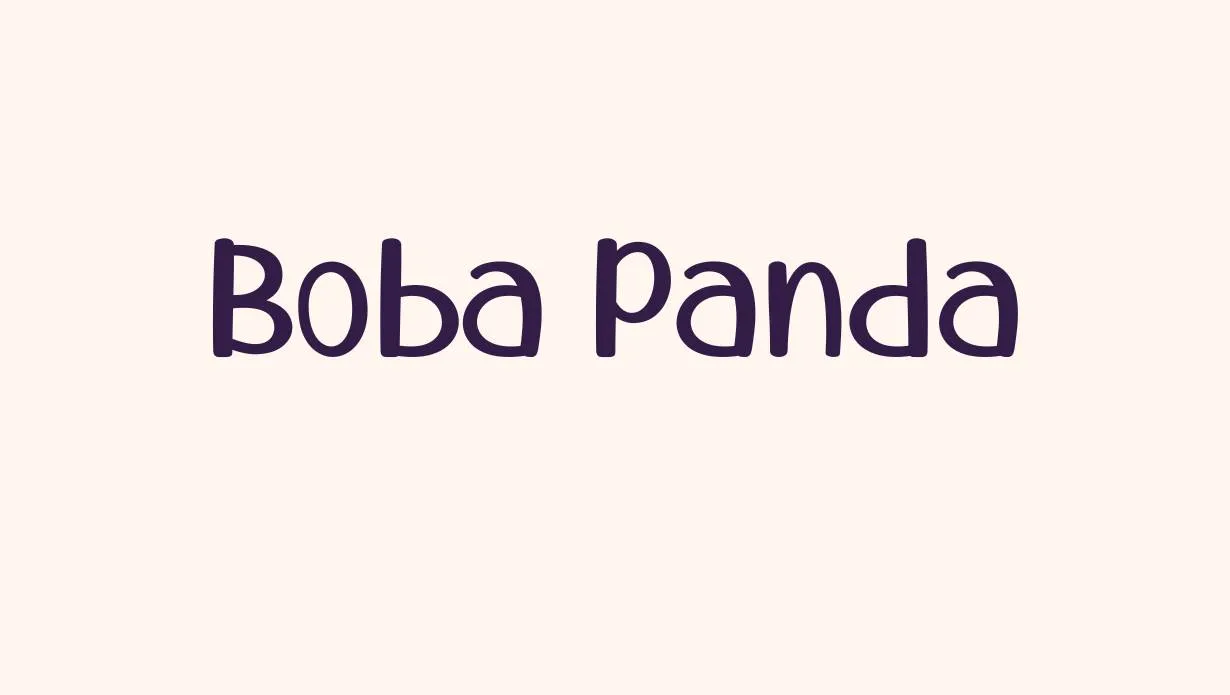
Boba Panda Font is a Fancy font with a cheerful vibe designed by a font designer 7NTypes. This font’s charm makes it appear wonderfully down-to-earth, and, ultimately, incredibly versatile. This is an elegant and stylish font that falls in the category of fancy fonts.
Its tall shape letters are suitable for creative heading purposes. This font has fantastic glyphs and stylistic alternates that are helpful in different design fields. The awesome look of this font is so coherent and perfect for long and short paragraphs. This font supports a number of multinational languages.
Usage of Boba Panda Font
You can use this font for creating social media post designs, and attractive poster designs. This font is suitable for making logos designs, name designs, and titling purposes. You can pick this font for creating brochure layouts, image layouts, and attractive text design purposes.
This font is suitable for watermark design on different pages, note design purposes, and other documentation purposes. You can use this amazing texture for creating article designs, presentation designs, and movie logo design purposes. It is perfect for greeting cards and wedding card design purposes.
What is the Boba Panda font used for?
Boba Panda is a whimsical handwritten font with a cheerful vibe designed by a font designer 7NTypes. This is an elegant and stylish font that falls in the category of fancy fonts.